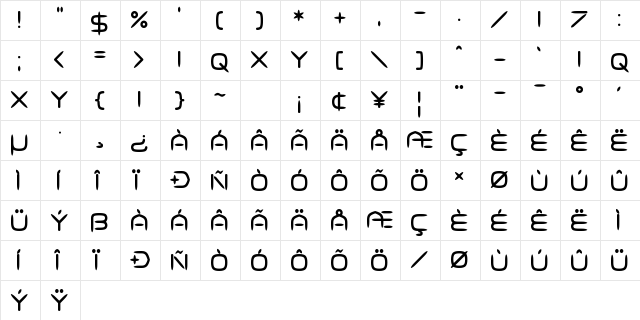
Fasterisq Regular
Design Context for Fasterisq Typeface
Fasterisq is a composed and adaptable typeface that performs quietly and consistently across a wide range of design contexts.